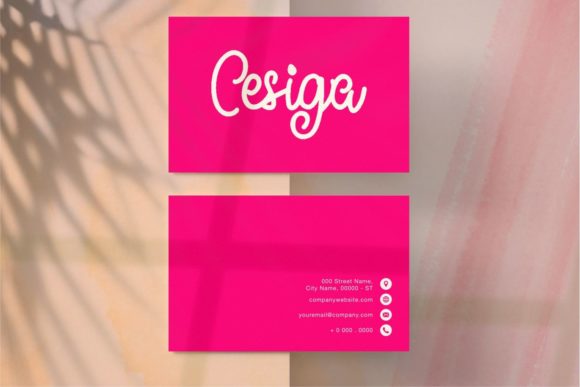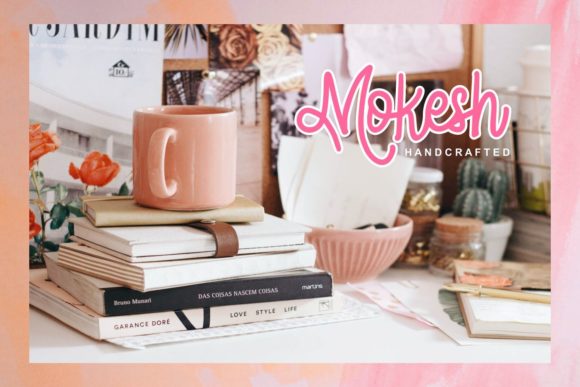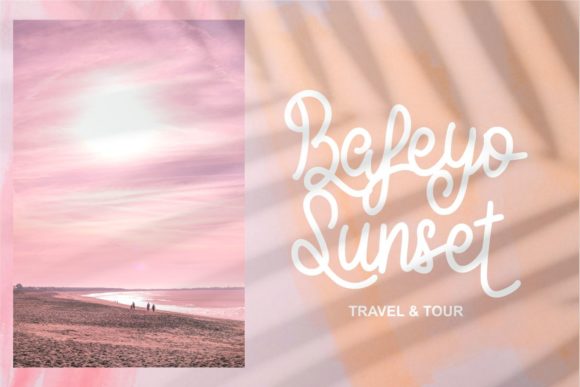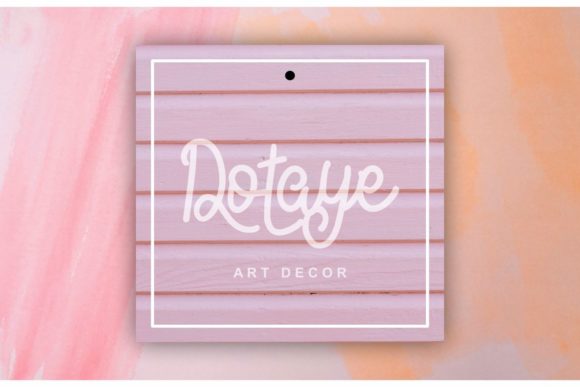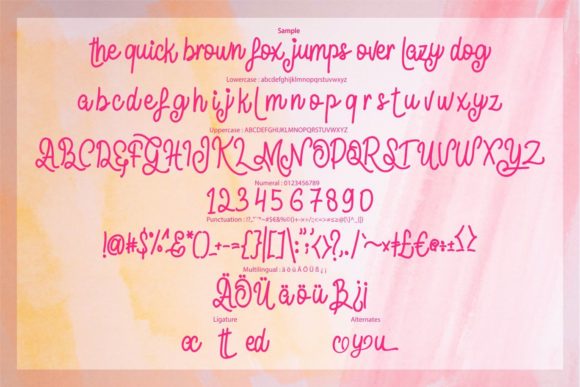
Introduction to Nafiled Script Font
Nafiled Script is a lovely and delicate script font that exudes elegance and class.
This font was particularly crafted for those who need a beautiful and refreshing look to their designs .
Key Features of Nafiled Script Font
Why Choose Nafiled Script Font?